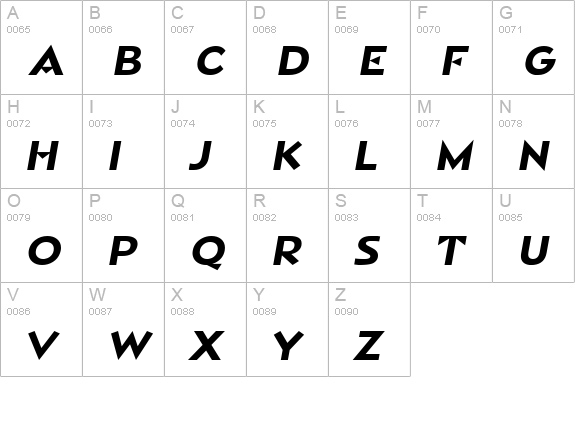
Napa SF Bold Italic Font Details
Napa SF Bold Italic is a strong, high-contrast, italic variant in the Napa typeface family \xE2\x80\x94 well suited to headlines, attention-grabbing titles, and strong calls-to-action.
Napa SF Bold Italic is a striking and versatile font that exudes confidence and modernity. Its bold weight combined with the elegant italic styling makes it perfect for creating eye-catching headlines, branding materials, and editorial designs. The sleek curves and sharp angles of Napa SF Bold Italic add a touch of sophistication and flair to any project. What sets Napa SF Bold Italic apart is not only its impeccable design but also its accessibility. This premium font is freely available to download at FontsMarket.com, allowing designers and creatives to easily incorporate it into their work without any constraints. Whether you're designing a logo, poster, or website, Napa SF Bold Italic is sure to make a bold statement and leave a lasting impression.